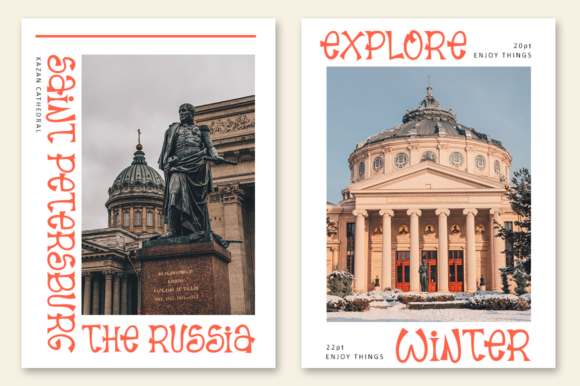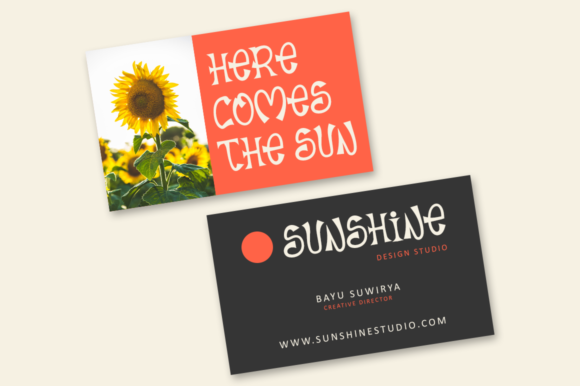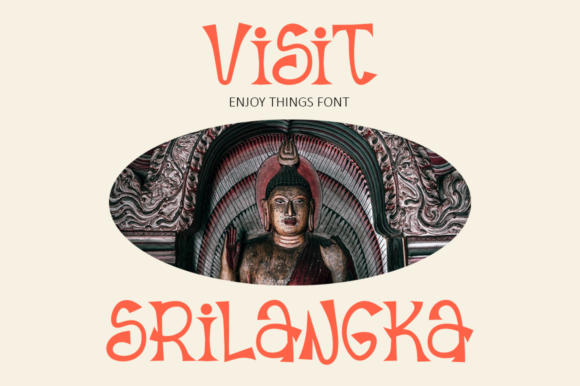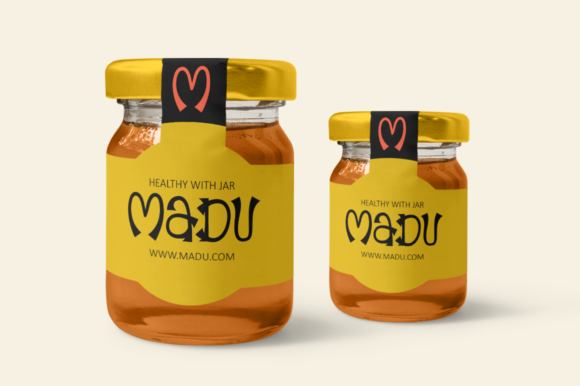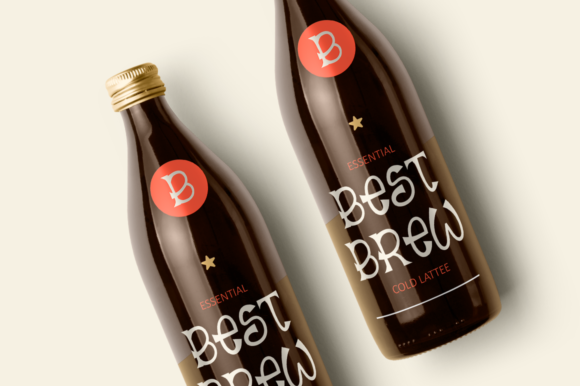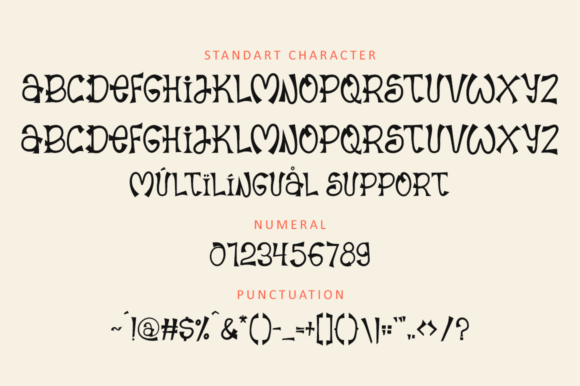
Introduction to Enjoy Things Font
Enjoy Things is a fun, quirky and modern display font.
Add to each of your party invitation, gathering or pretty much any design that requires a touch of youth and joy .